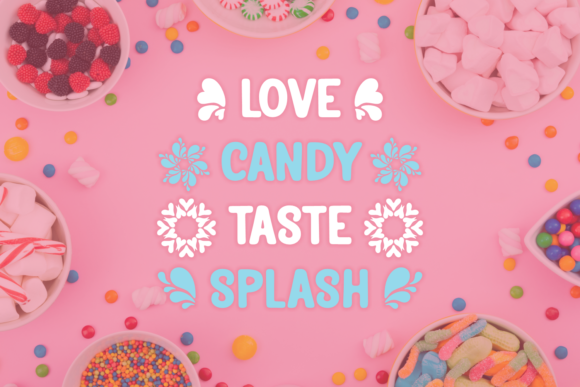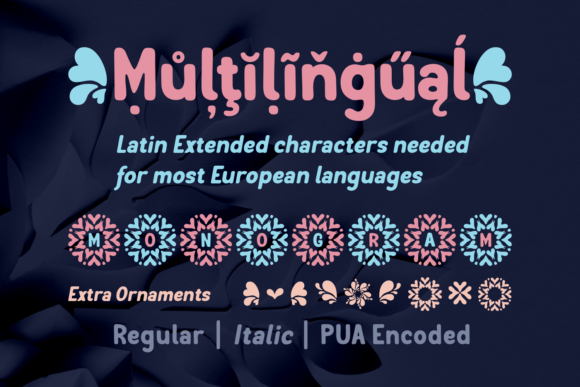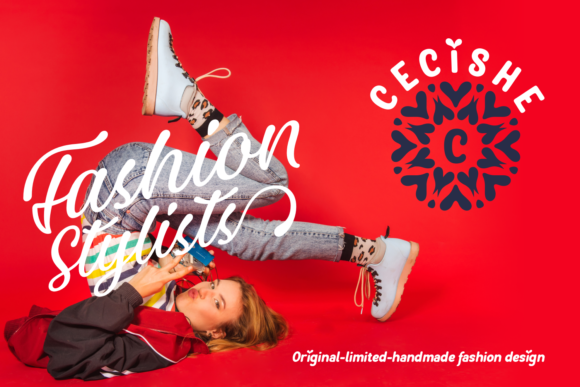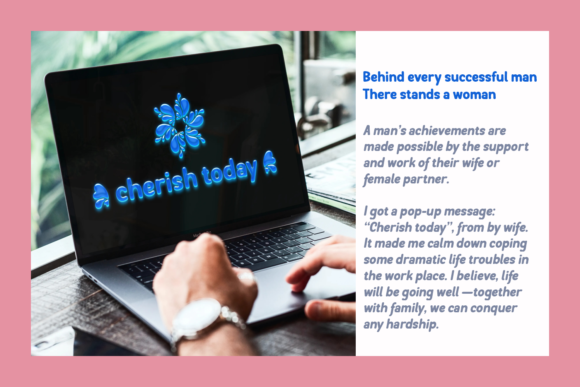
Introduction to Jellion Font
Have you ever stumbled upon the perfect font while working on a creative project, and it just makes everything click? For designers, this feeling is priceless. It’s the moment when you find a font that not only enhances your design but also tells a story. That’s exactly what Jellion Font is all about – a beautifully crafted display font that’s waiting to elevate your next project.
With its casual charm and down-to-earth feel, Jellion Font is the perfect addition to any design. Whether you’re working on a free download or a high-quality design resource, this font will shine through. Its versatility makes it a valuable asset for designers, and its transparent background allows for seamless integration with any background.
In this article, we’ll dive deeper into the world of Jellion Font and explore what makes it a true favorite among designers. From its design process to its applications, we’ll uncover the secrets behind this stunning font.
Key Features of Jellion Font
- High-quality design for creative projects: The Jellion Font is designed to provide a unique and visually appealing aesthetic for various creative projects.
- High-resolution design: The font is designed with high-resolution graphics in mind, ensuring that it looks great on both small and large scales.
- Unique characteristics: The Jellion Font features a unique blend of modern and vintage elements, making it an excellent choice for designers looking to add a touch of personality to their work.
Honest Review: Jellion Font
As a designer, I’m always on the lookout for high-quality design resources to elevate my creative projects. The Jellion Font is a great addition to my collection, offering a unique and stylish touch to any design.
- ✨ Beautifully crafted letters with a modern feel
- ✨ Suitable for a wide range of creative projects, from branding to digital art
- ⚠️ Limited character set, which may be a concern for those who need a full-featured font
- ⚠️ Not suitable for large blocks of text due to its decorative nature
Overall, the Jellion Font is a solid addition to any design library. While it may not be perfect, its unique style and free availability make it a great choice for designers looking to add some flair to their creative projects.
Common Use Cases for Jellion Font
The Jellion Font is suitable for various projects, including logos, business cards, brochures, and social media graphics. Its versatility and high quality make it an excellent choice for designers and non-designers alike.